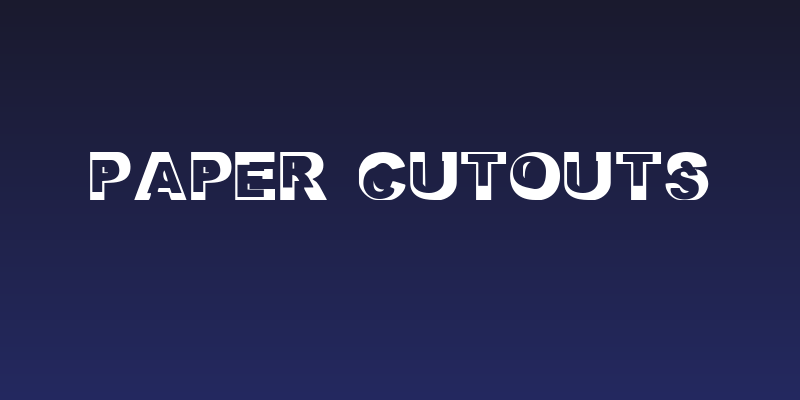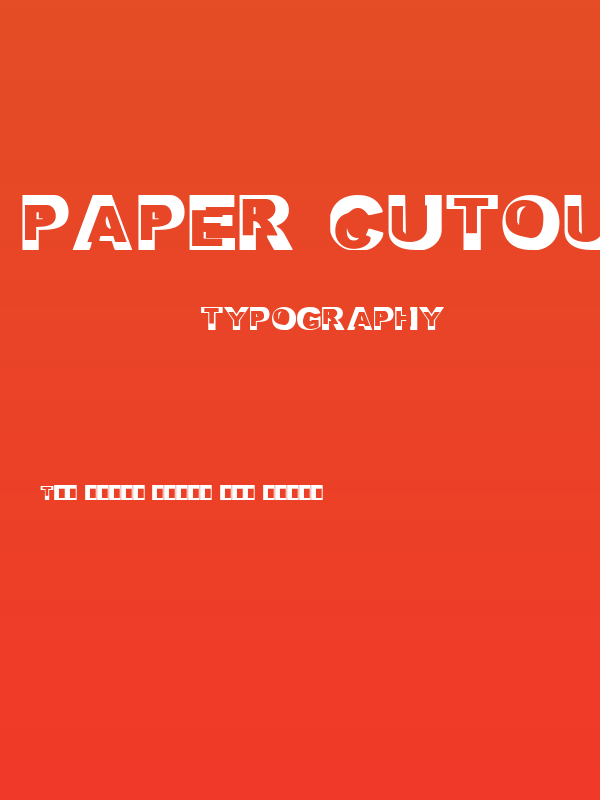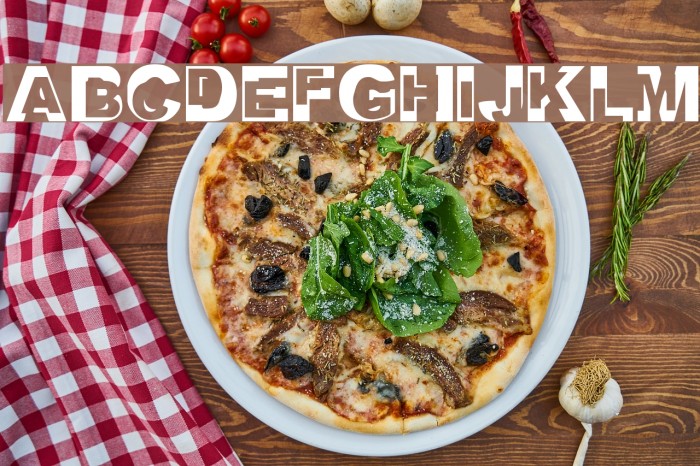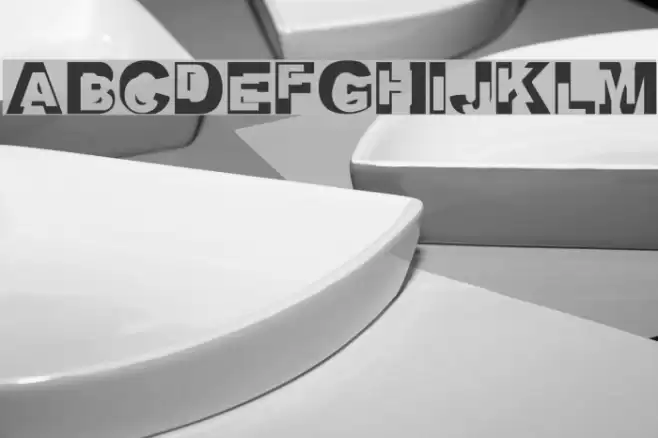
Paper Cutouts Font
Paper Cutouts Description
This font features a bold, geometric style with a playful and artistic twist. Each character appears as if it has been cut out of paper, creating a unique and eye-catching effect. The uppercase letters are particularly striking, with sharp angles and clean lines that give them a strong presence. The font's design incorporates negative space creatively, adding to its visual appeal. It is well-suited for projects that require a bold statement or a modern, artistic touch. The font's distinct style makes it ideal for use in headlines, posters, and other display purposes where attention-grabbing typography is desired.
| Proposed Projects | Ideal for posters, headlines, branding, and artistic projects requiring a bold statement. |